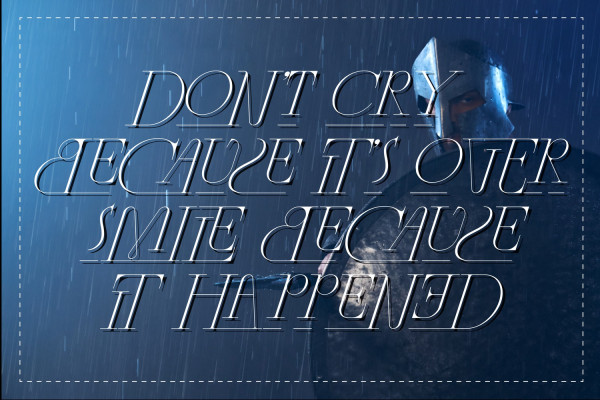
Ancient Greece Font
Ancient Greece Font – Chic Ligature Serif Font Is A Elegant Serif Font with Stylistic Alternates and Ligatures: Vintage & chic, nostalgic & super elegant, modern & art deco! It is perfect for logos & quotes, posters & branding, website headlines, newsletters & more! It includes over 100 ligatures and some chic alternate letters, so you can combine it to get the look you want!
Ancient Greece was built with OpenType features and includes 100 ligatures, alternate, numbers, punctuation, and it also supports other languages.